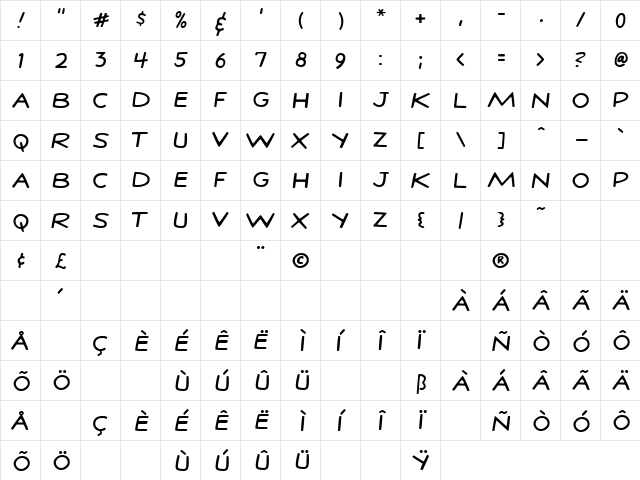
StanLeeRegular Regular
Design Context for StanLeeRegular Typeface
StanLeeRegular takes a measured approach to typography — its balanced proportions and neutral character make it a reliable workhorse for both digital and print work.